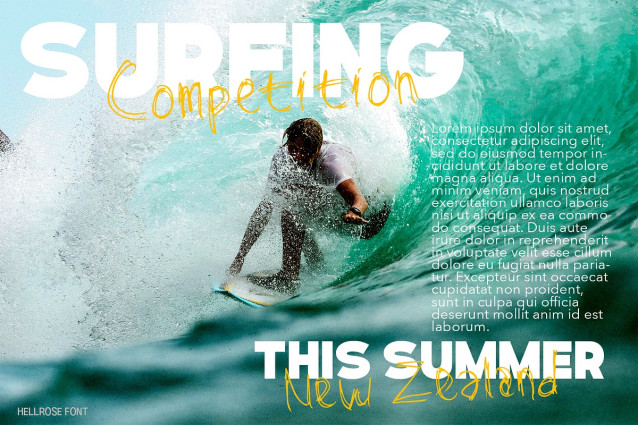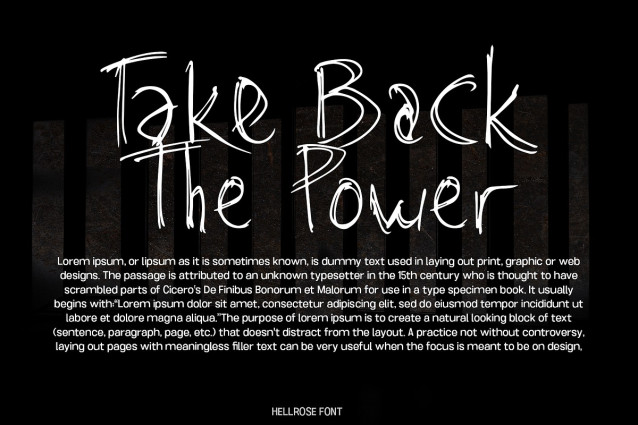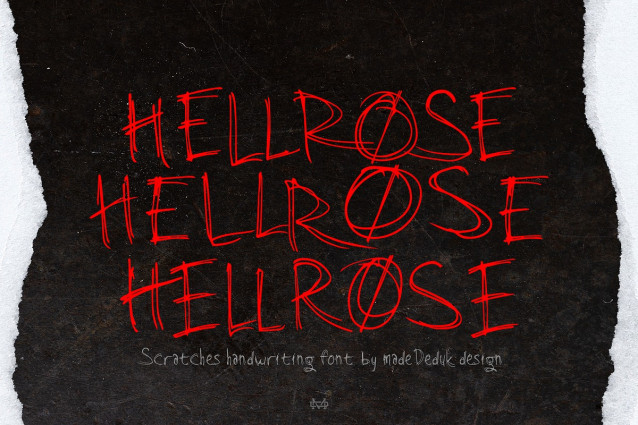
Hellrose Hand Font
Hellrose Hand Font is a scratches hand drawn font contains 50+ ligatures with three alternative. Hellrose is great for branding, posters, logos, invitation, writing and headings.